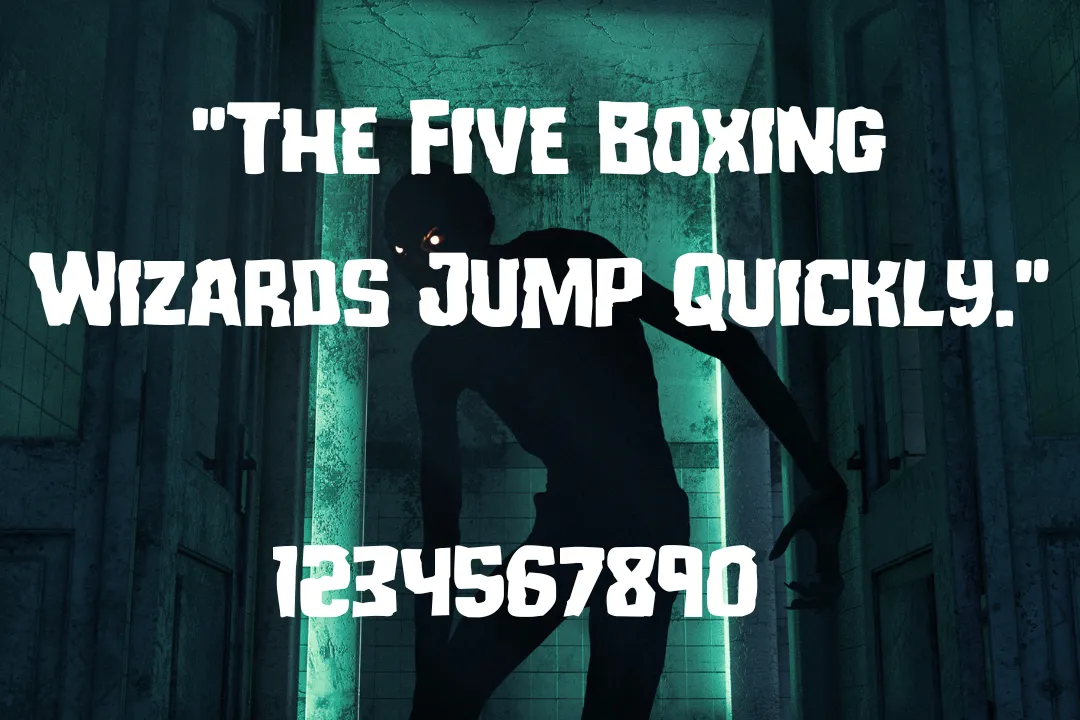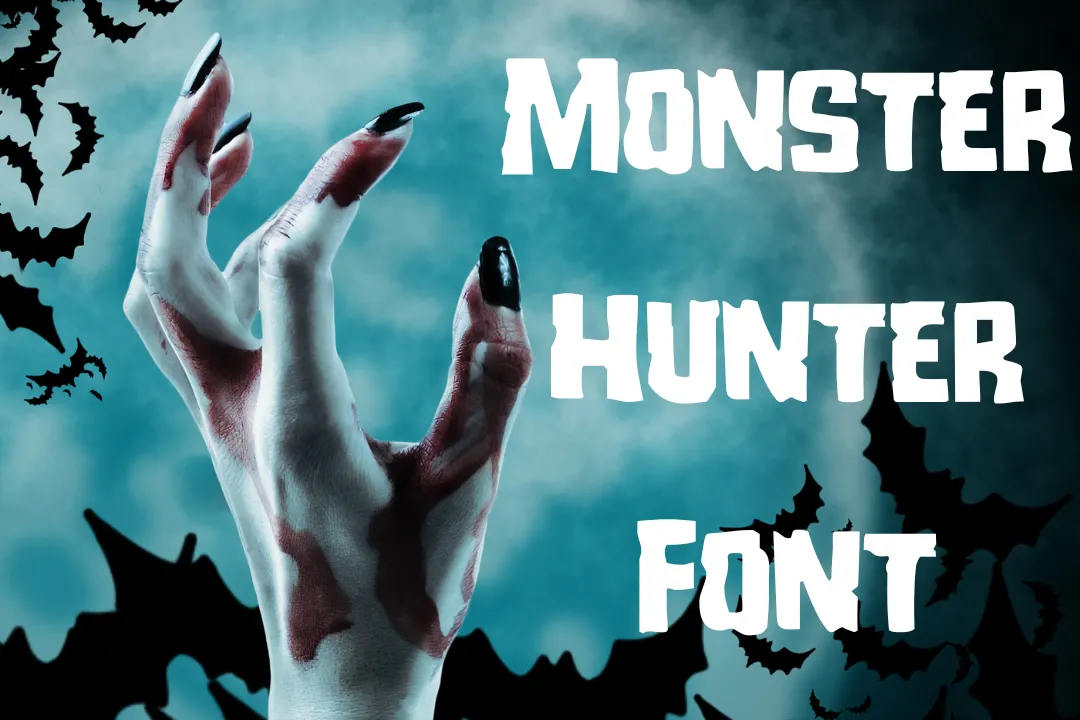
Today, We are going to present a very stunning and eye-catching texture known as Monster Hunter Font. This remarkable typeface was prepared and discharged by a well-known graphic developer Iconian Fonts. It is under the category of the Fancy typeface family. Basically, it is designed for horror stories because this typeface has a bold texture.
Uses of Monster Hunter Font
This typeface has an awesome and clear texture look. You can use it for any kind of project. Monster Hunter Font is very suitable for Website developments, advertisements, social media posts, and many others.
It is mostly used for logo designing, poster designing, newspapers, magazines, and making cards. This typeface can be used for professional and private-type projects. you can easily use it for, articles, guest postings, business content, assignments, and invoices. Many designers use it for creating ebook cover pages, games, and gift cards.
This wonderful typeface is best for use in handy crafts and art designs. This typeface can make your designs look more attractive to the viewers. It will make your content easy to read and understandable.
Monster Hunter Font View
What type of font is Monster Hunter Font?
This typeface was discovered by Iconian Fonts. It is a very famous typeface because. It has very unique and outstanding features that can make your designs look more attractive.
Can I use Monster Hunter Font for my logo?
Yes! You can use it for your logo designs, posters, and advertisements. It can be used for any type of design, that is related to writing articles and guest postings.